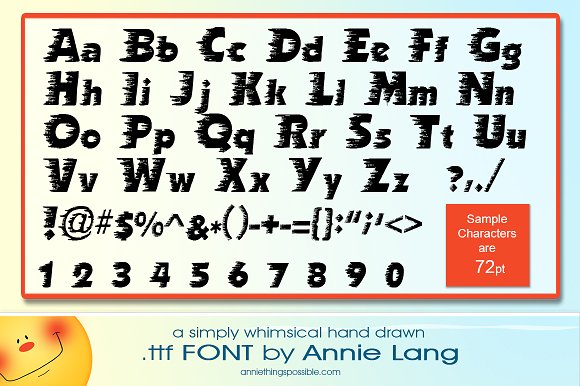
Annie’s Windy Font
Annie's Windy Font
A hand rendered whimsical font that lends itself perfectly to wind, speed and fast moving creative projects. This simple designer novelty font was originally created as a .ttf vector font that I’ve used to create rasterized color wordart elements for commercial textile prints, book illustrations, windy weather flyers, speed related logo images, teacher printables for kids, decorative painting projects and scrapbooking clipart. If you haven’t got this font yet, you’d better hurry up because it will blow you away!